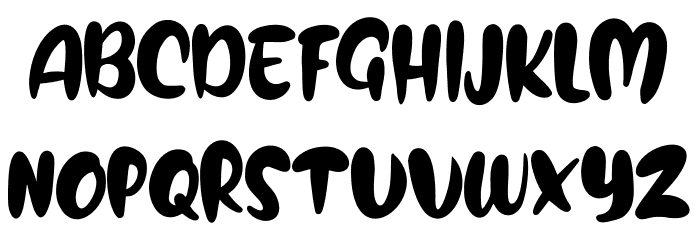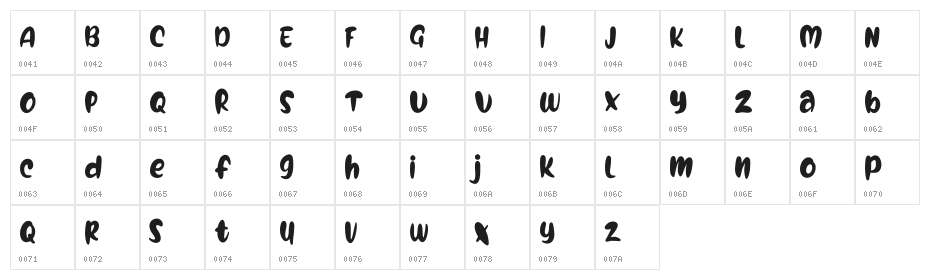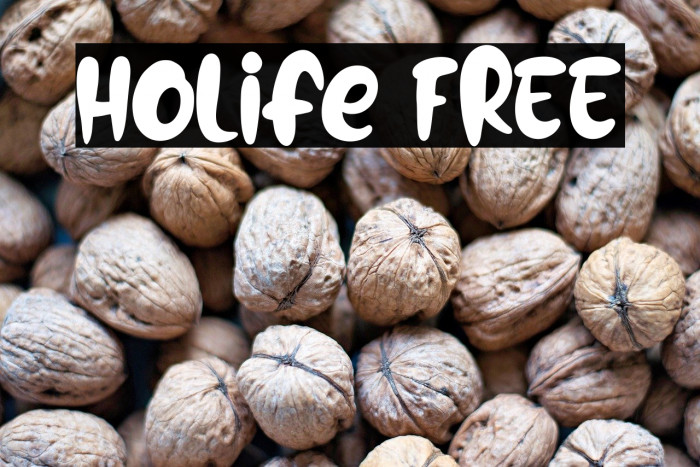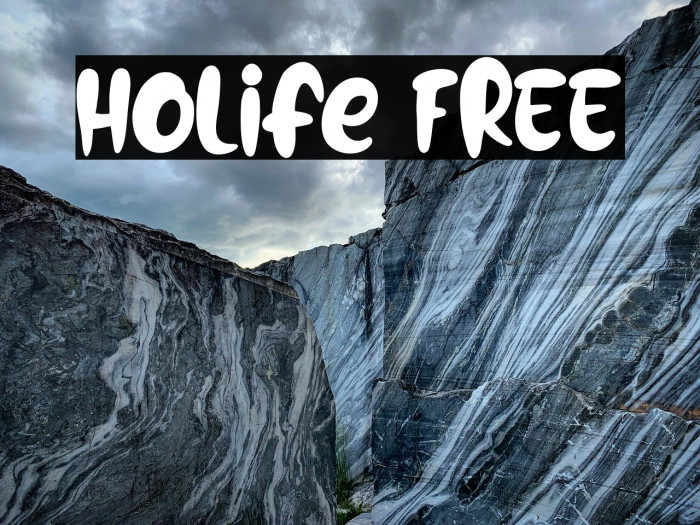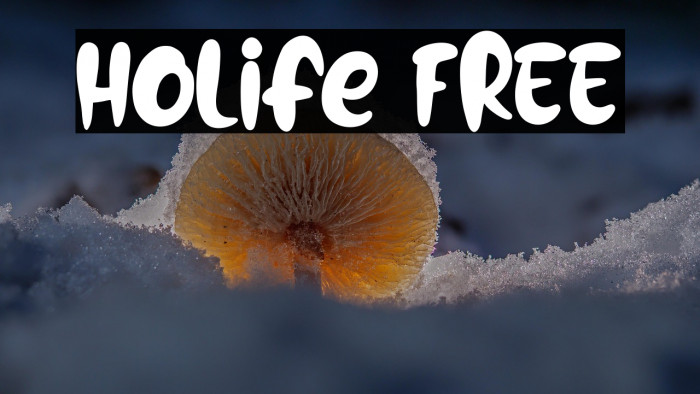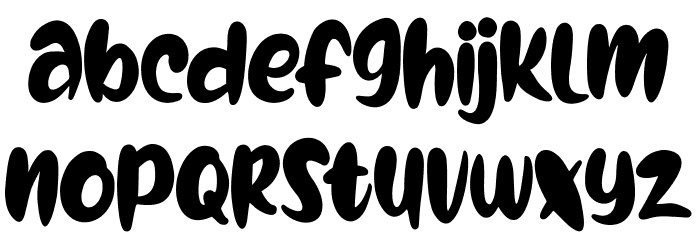
Holife FREE Font
Holife FREE Description
This font features a bold and playful style with a handwritten appearance. The letters are rounded and have a smooth, flowing quality, giving them a friendly and approachable feel. The strokes are thick and consistent, providing a strong visual impact. The uppercase and lowercase letters maintain a cohesive look, with slight variations in the curves and angles that add character. The font is versatile and can be used to convey a sense of fun and creativity. It is well-suited for projects that require a personal touch or a casual, informal tone.
| Proposed Projects | Ideal for children's books, greeting cards, playful branding, and social media graphics. |